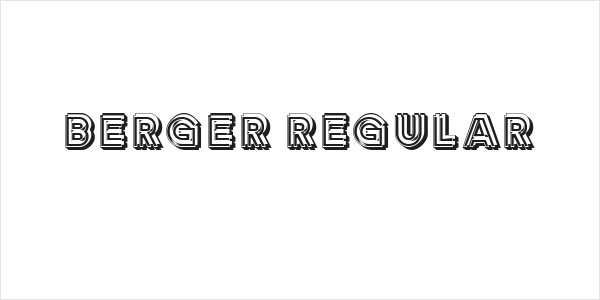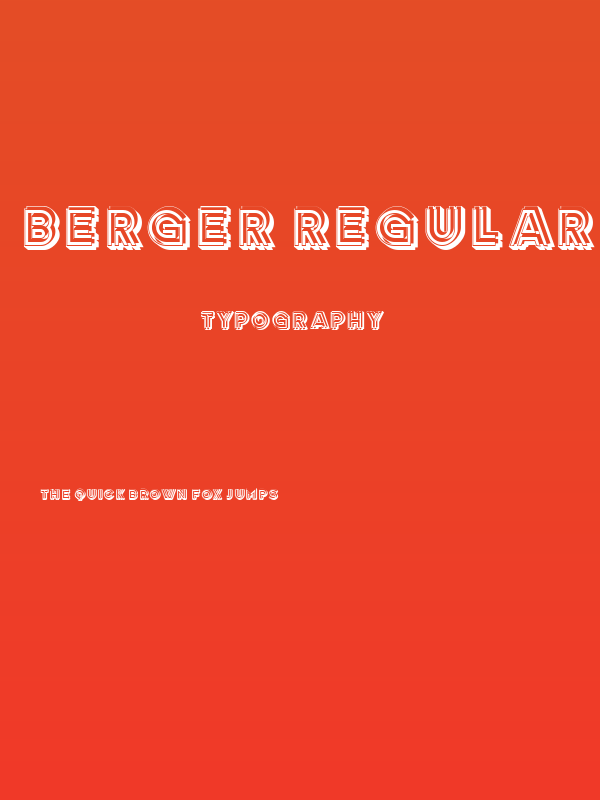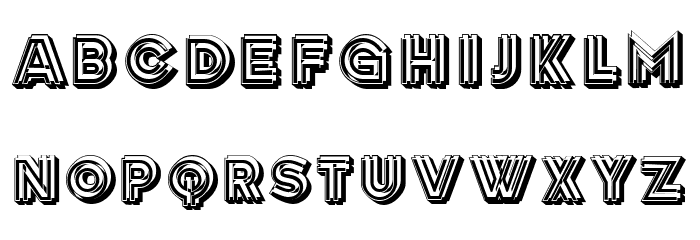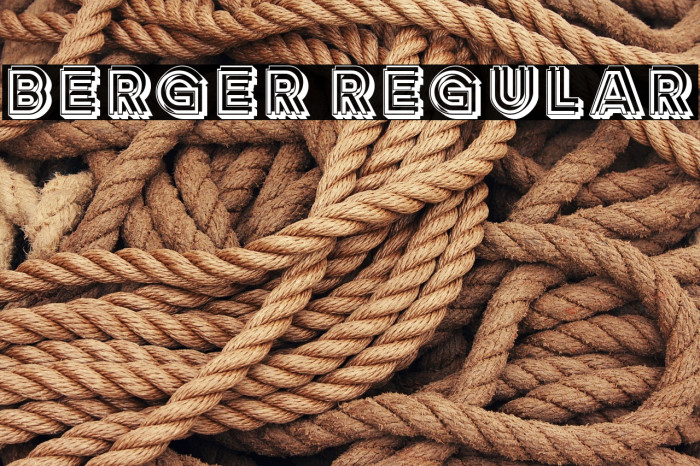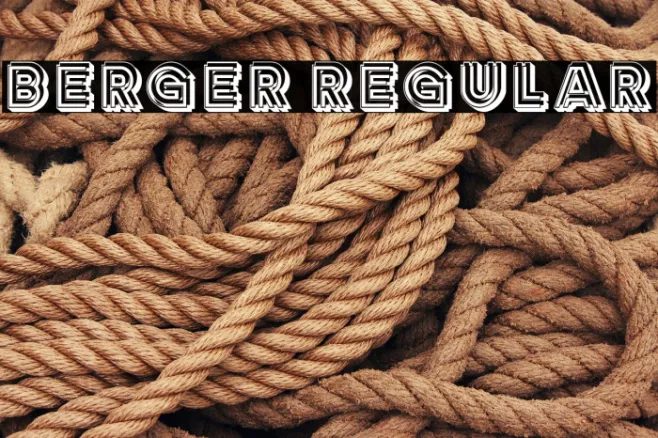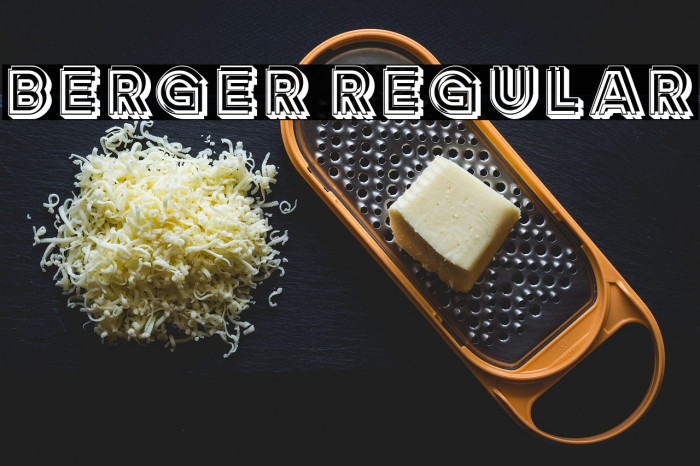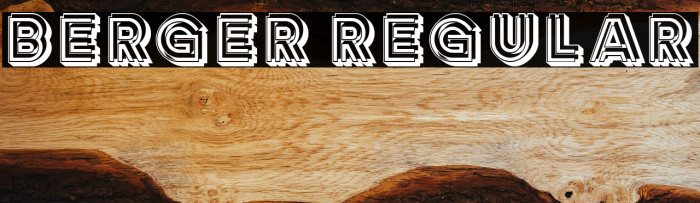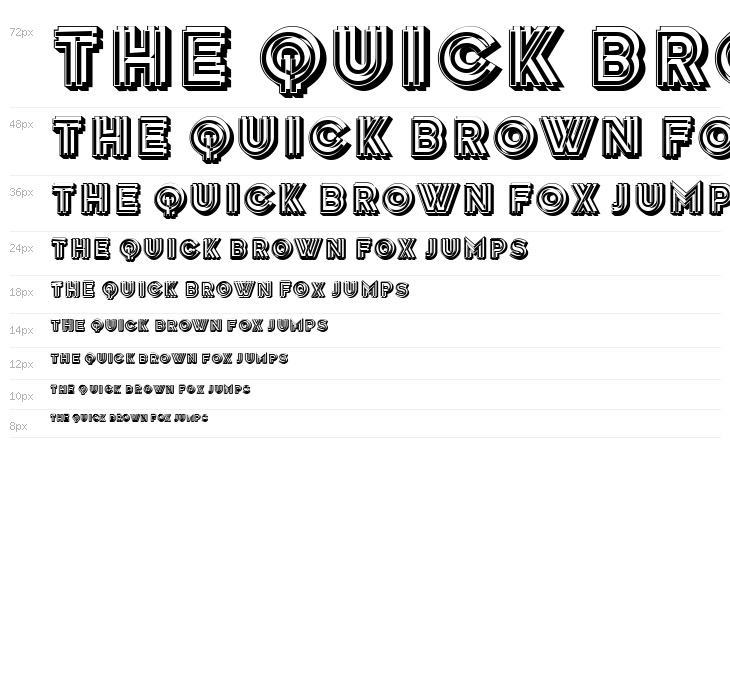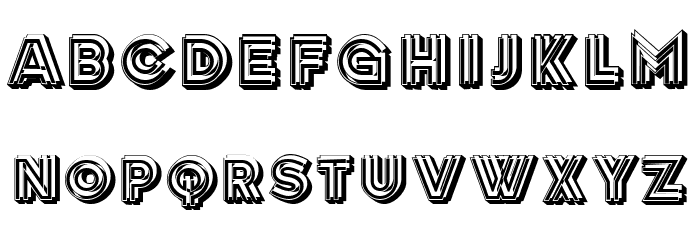
Berger Regular Font
Berger Regular Description
This font features a bold, three-dimensional design with a layered effect that gives it a striking, eye-catching appearance. The letters are uppercase and have a geometric structure with clean lines and sharp angles. The overlapping layers create a sense of depth and movement, making it ideal for designs that require a strong visual impact. The font's unique style is both modern and playful, suitable for creative projects that aim to stand out.
| Proposed Projects | Ideal for poster designs, branding, headlines, and any project needing a bold, impactful typeface. |